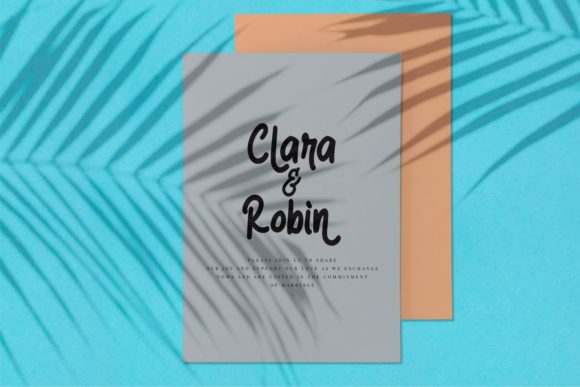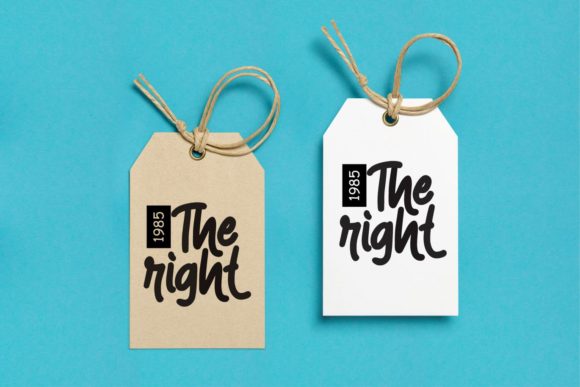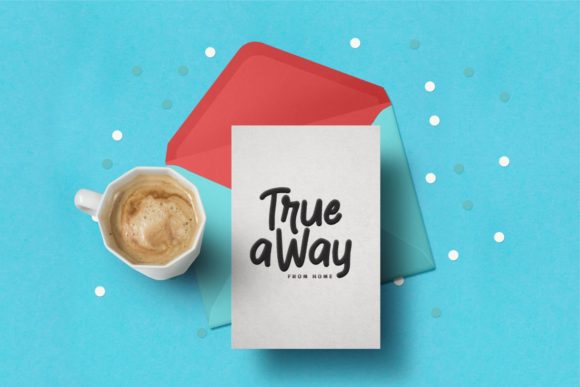
HomeScript FontsRiver Font Script Fonts River Font FacebookXPinterestWhatsApp River Font Poster 2 River Font Poster 3 River Font Poster 4 River Font Poster 5 About River Font River is a sweet and simple handwritten font with a unique charm. Get inspired by its bold flavor. DOWNLOAD ON CREATIVE FABRICAThis font is sold and delivered by Creative Fabrica. Font Canyon may earn a commission if you buy through this link. People also explored Gogym Sports Font Allaberty Novelya Font Jonitha Font Andicha Font Strawberry Font Superbold Font Master Book Font Winderlust Font Julietta Kissing Font 428 0 TagsRiver Font Previous articleHaglos FontNext articleQickie Font LEAVE A REPLY Cancel reply Comment: Please enter your comment! Name:* Please enter your name here Email:* You have entered an incorrect email address! Please enter your email address here Website: Save my name, email, and website in this browser for the next time I comment. Personal Use Free Wadjet Personal Use Free Read more about this font Goodline Font Personal Use Free Read more about this font Handayani Personal Use Free Read more about this font Masker Area Personal Use Free Read more about this font BLOG Best Fonts for YouTube Videos: Make Your Thumbnails Stand Out Best Fonts for YouTube Videos: Make Your Thumbnails Stand Out Choosing the right font can make a massive difference in how your YouTube videos perform.... Transform Your Website: Elevate Your Typography with 7 Best Web Font Generators Top 7 Google Fonts Alternatives for Faster and Privacy-Friendly Web Design (2025) Free vs Paid Fonts: Why Investing in Premium Fonts Is Worth It